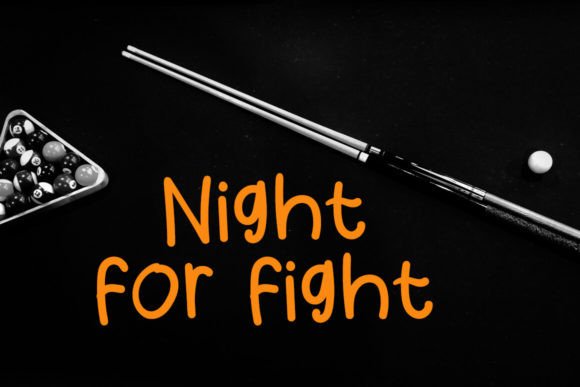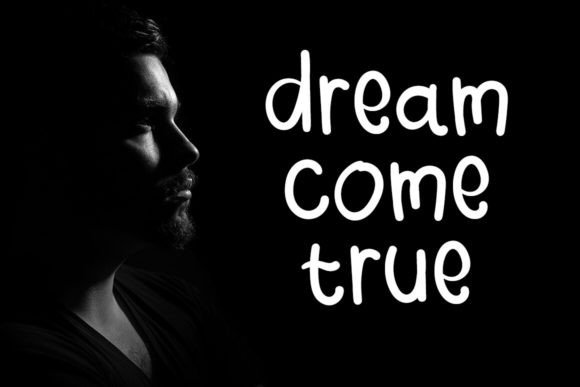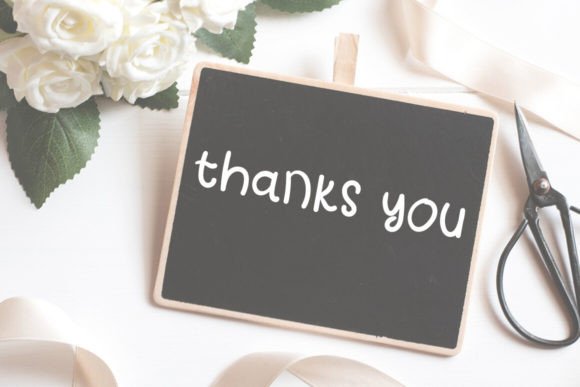
Introduction to Picky Picka Font
Do you remember that moment when you stumbled upon the perfect font for your design project? The one that elevates your entire creative process and makes your vision shine through? For many designers, that moment is often a result of discovering a high-quality font that perfectly captures the essence of their project. Today, we’re excited to introduce you to the Picky Picka Font, a design resource that has been making waves in the creative community with its captivating allure and elegance.
This charming font is not just a pretty face; it’s a valuable addition to any designer’s toolkit, offering a free download that can be easily integrated into your creative project. With its transparent background and delicate curves, Picky Picka Font is the perfect solution for designers looking to add a touch of sophistication to their designs.
Key Features of Picky Picka Font
- Unique, hand-drawn design perfect for creative projects and design resources
- High-quality font with transparent background for easy layering and customization
- Includes a full character set with uppercase and lowercase letters, numbers, and punctuation marks
- Designed to be highly versatile and suitable for a wide range of design applications, from print to digital media
- Font size: scalable to any size, making it perfect for titles, headings, and body text
Honest Review: Picky Picka Font
I recently had the chance to work with the Picky Picka Font, and I must say it’s been a game-changer for my design projects. This high-quality font is perfect for creating visually appealing designs that grab attention.
One of the standout features of Picky Picka Font is its transparent background, making it super easy to layer and arrange text. This is a total design resource for any creative project. Plus, it’s available for free download, which is a major plus in my book!
- High-quality design that’s perfect for print or digital projects
- Transparent background makes it easy to customize
- Works well for headings, body text, and even logotypes
As with any font, there are some limitations to consider:
- May not be suitable for very small text sizes
- Some users may find it too playful for formal projects
Overall, I’m really impressed with the Picky Picka Font. It’s a solid choice for any design project, and its transparent background and free download make it a total winner in my book. ✨”
Picky Picka Font: A High-Quality Design Resource
Getting the Most Out of Picky Picka Font
For the best results, use Picky Picka Font on a transparent background to create a high-quality design. Experiment with different font sizes and colors to add depth and interest to your project.
Picky Picka Font is ideal for use in creative projects such as brochures, business cards, and social media graphics. Its unique design and high-quality features make it a valuable resource for designers and non-designers alike.